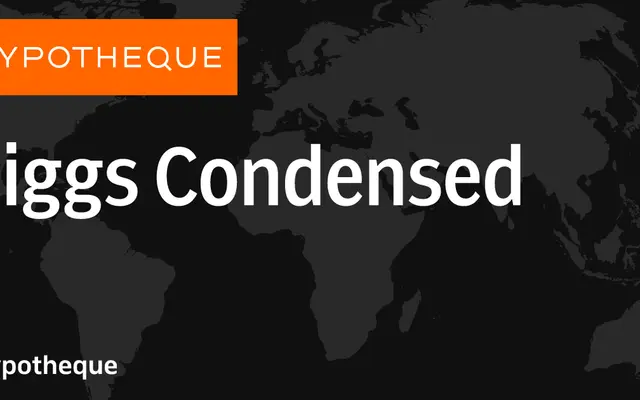
Riggs Condensed specimen from Typotheque
A condensed cut of Typotheque's Riggs serif family, offered in six weights with matching italics as part of a three-width system spanning Condensed, Regular and Extended.
Riggs Condensed sits within a structured width system alongside the standard Riggs and Riggs Extended, giving designers flexibility across text hierarchies and column widths. Six weights from ExtraLight to Bold each carry a matching italic, making the condensed cut genuinely usable for both text and display setting. Individual styles are sold under city-named licences, a Typotheque convention for modular purchasing.
Riggs presents a refined, upright serif with optical size variants and width variants suggesting a text-oriented transitional or humanist serif design; the condensed cut is a distinct width subfamily within the broader Riggs system.